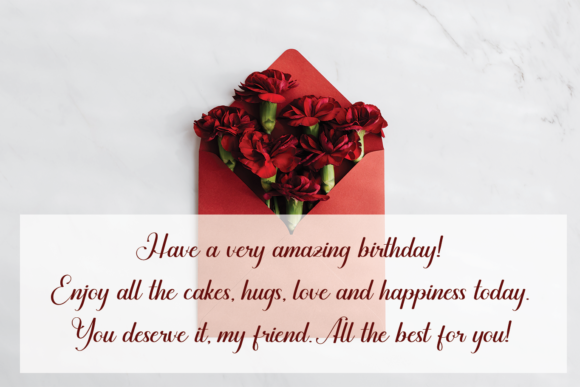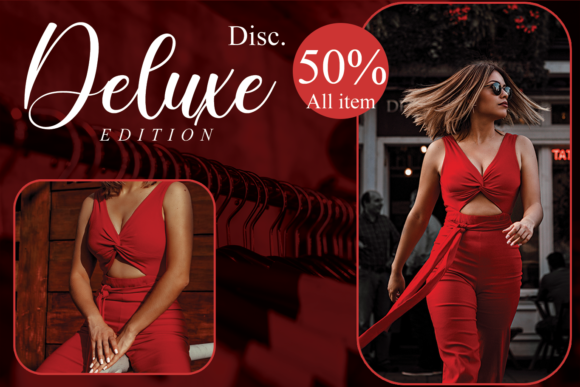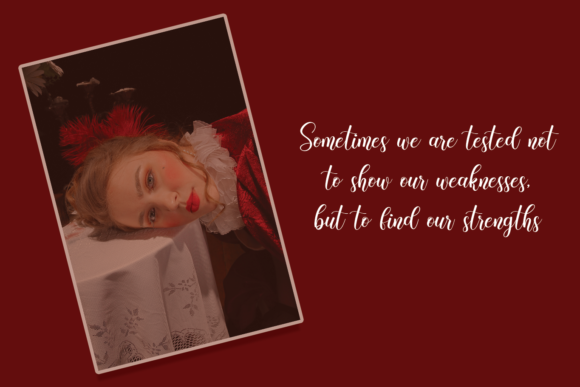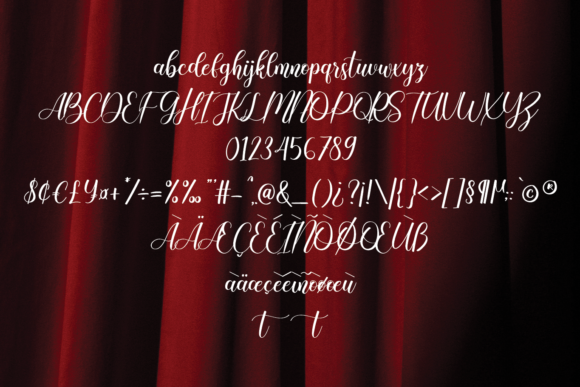
Introducing Brightness Font: Elevate Your Designs with Elegance and Class
In the world of typography, a well-crafted font can make all the difference in transforming a design from ordinary to extraordinary. For those seeking a beautiful and refreshing look, Brightness Font is an exquisite choice. This lovely and delicate script font exudes elegance and class, making it perfect for designers and crafters looking to add a touch of sophistication to their work.
The Story Behind Brightness Font
Brightness Font was particularly crafted for those who need a beautiful and refreshing look to their designs. The creators of this font aimed to produce a typeface that would bring a sense of luxury and refinement to any project. With its intricate details and flowing lines, Brightness Font is sure to captivate audiences and leave a lasting impression.
Key Features of Brightness Font
• Elegant Script Style: Brightness Font boasts a beautiful script style that adds a touch of elegance to any design. Its delicate lines and curves create a sense of movement and fluidity, making it perfect for titles, headings, and quotes.
• Delicate and Refined: This font features a refined and delicate aesthetic that is sure to impress. Its subtle details and intricate craftsmanship make it an excellent choice for designs that require a high level of sophistication.
• Highly Versatile: Brightness Font is highly versatile and can be used in a variety of design applications, from branding and advertising to packaging and digital media.
• Easy to Read: Despite its elegant and delicate nature, Brightness Font remains easy to read, making it perfect for body text and longer passages.
Design Applications for Brightness Font
Brightness Font is an excellent choice for a wide range of design applications, including:
• Branding and Identity: Use Brightness Font to create stunning logos, business cards, and letterheads that exude elegance and sophistication.
• Advertising and Marketing: Add a touch of luxury to your advertising campaigns with Brightness Font. Its elegant style is sure to capture attention and leave a lasting impression.
• Packaging Design: Brightness Font is perfect for packaging design, adding a touch of refinement and sophistication to product labels and packaging materials.
• Digital Media: Use Brightness Font in digital media, such as website headers, social media graphics, and email newsletters, to add a touch of elegance and class.
Tips for Using Brightness Font
To get the most out of Brightness Font, follow these tips:
• Pair with Neutral Colors: Brightness Font looks stunning when paired with neutral colors such as white, black, and gray. This allows the font to take center stage and showcase its elegance.
• Experiment with Font Sizes: Brightness Font can be used at a variety of font sizes, from large headings to smaller body text. Experiment with different font sizes to find the perfect balance for your design.
• Add a Pop of Color: Add a pop of color to your design with Brightness Font by using a bold or bright color for headings or accents.
In conclusion, Brightness Font is a beautiful and elegant script font that is sure to elevate your designs to new heights. Its delicate and refined aesthetic makes it perfect for designers and crafters looking to add a touch of sophistication to their work. With its highly versatile nature and ease of use, Brightness Font is an excellent choice for a wide range of design applications.